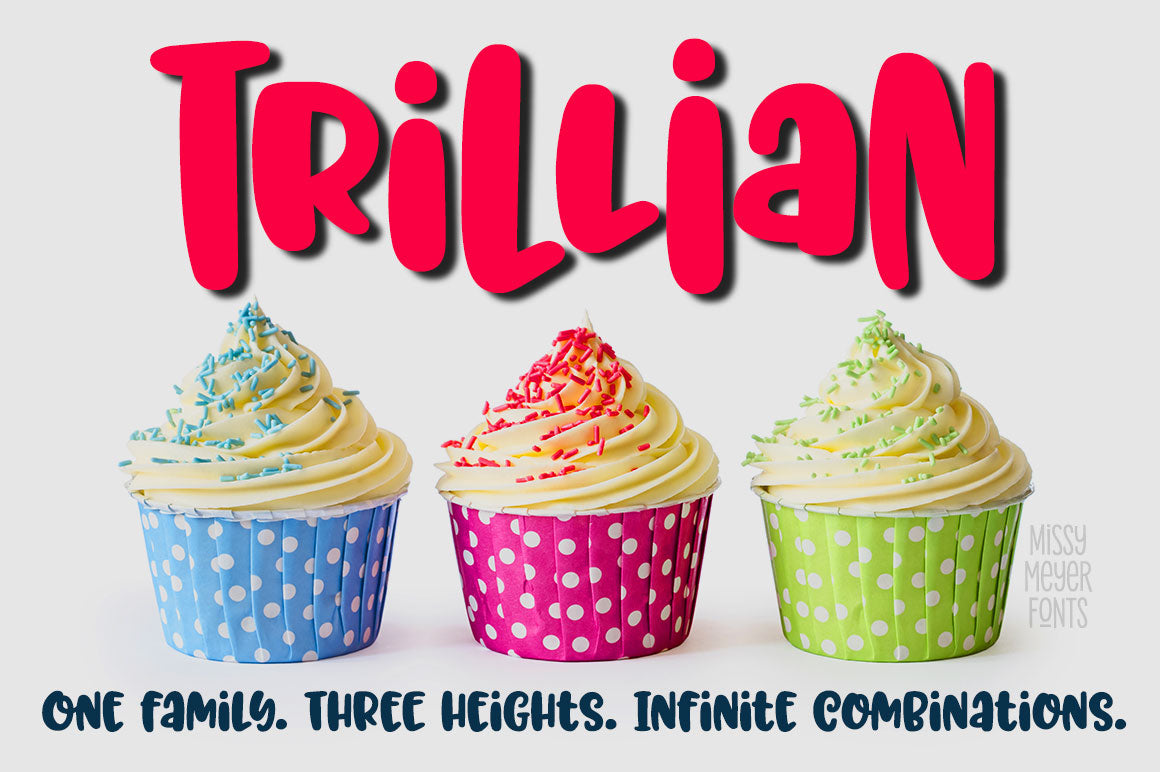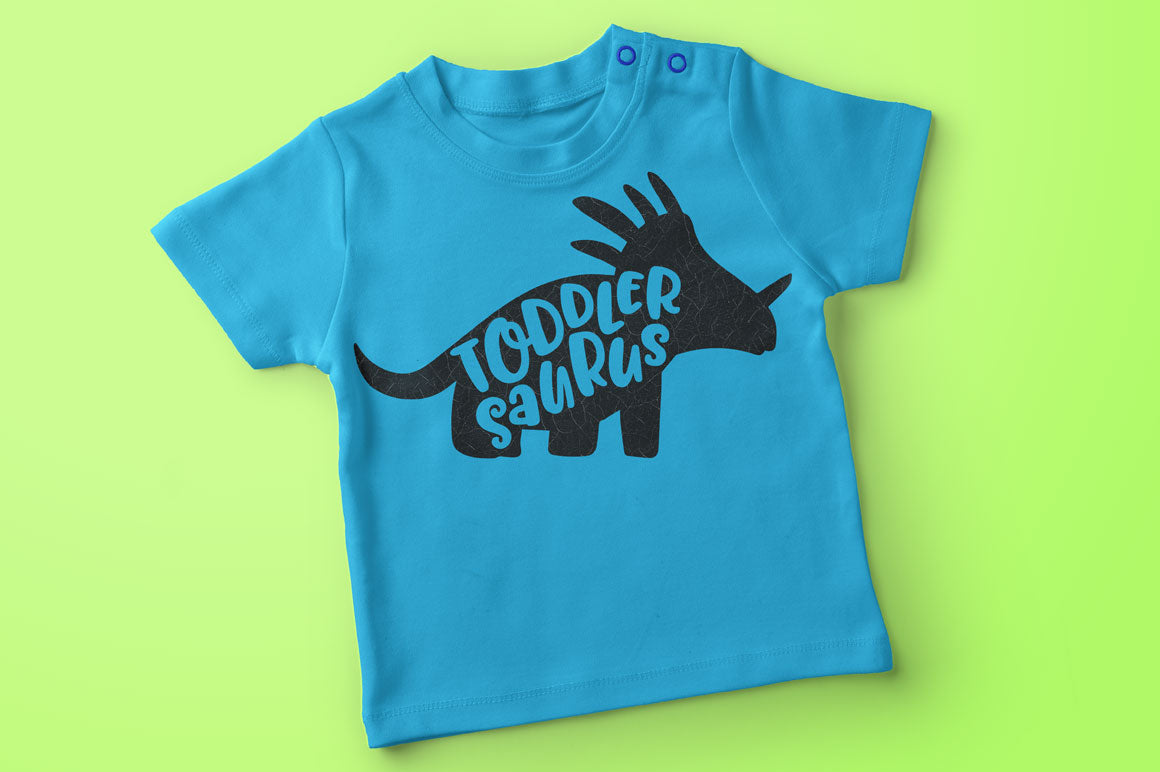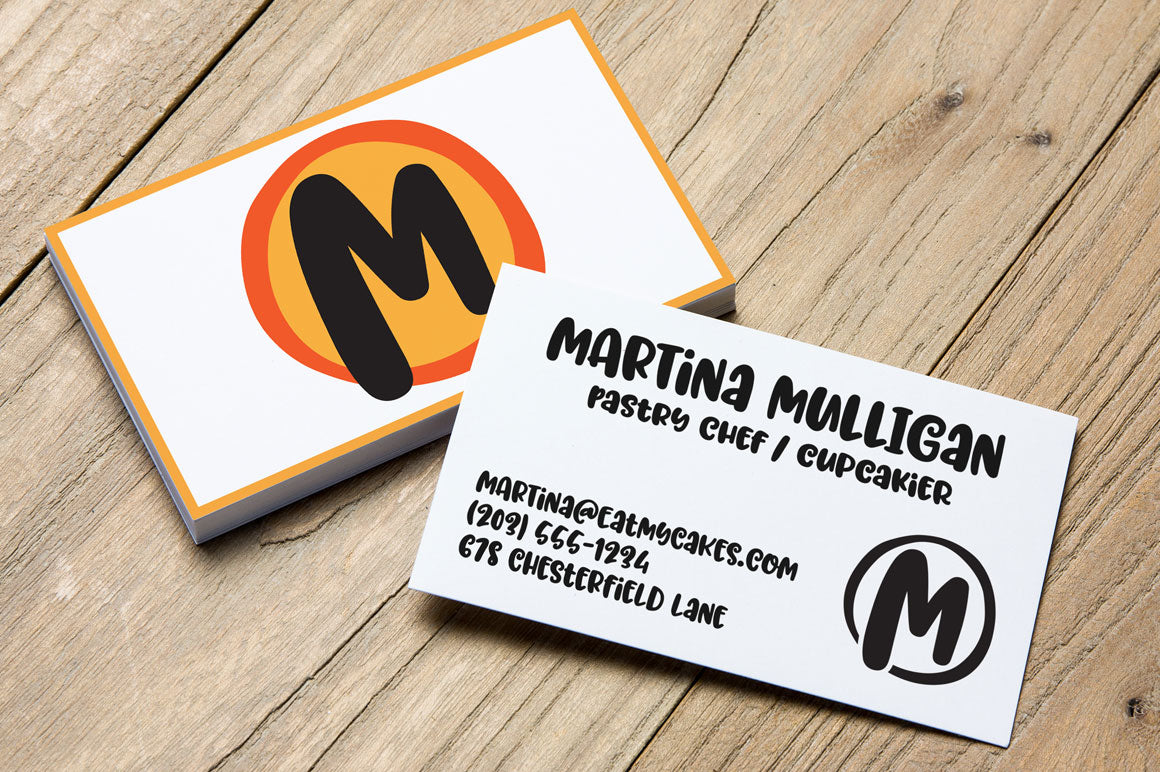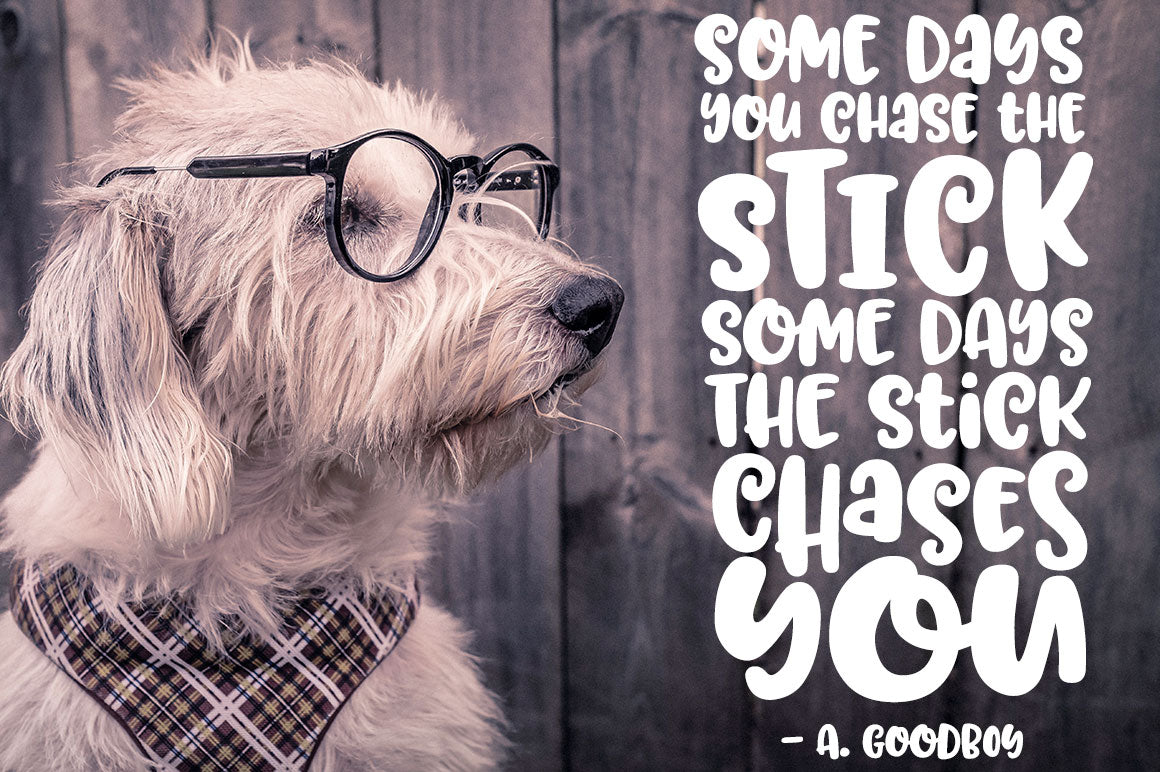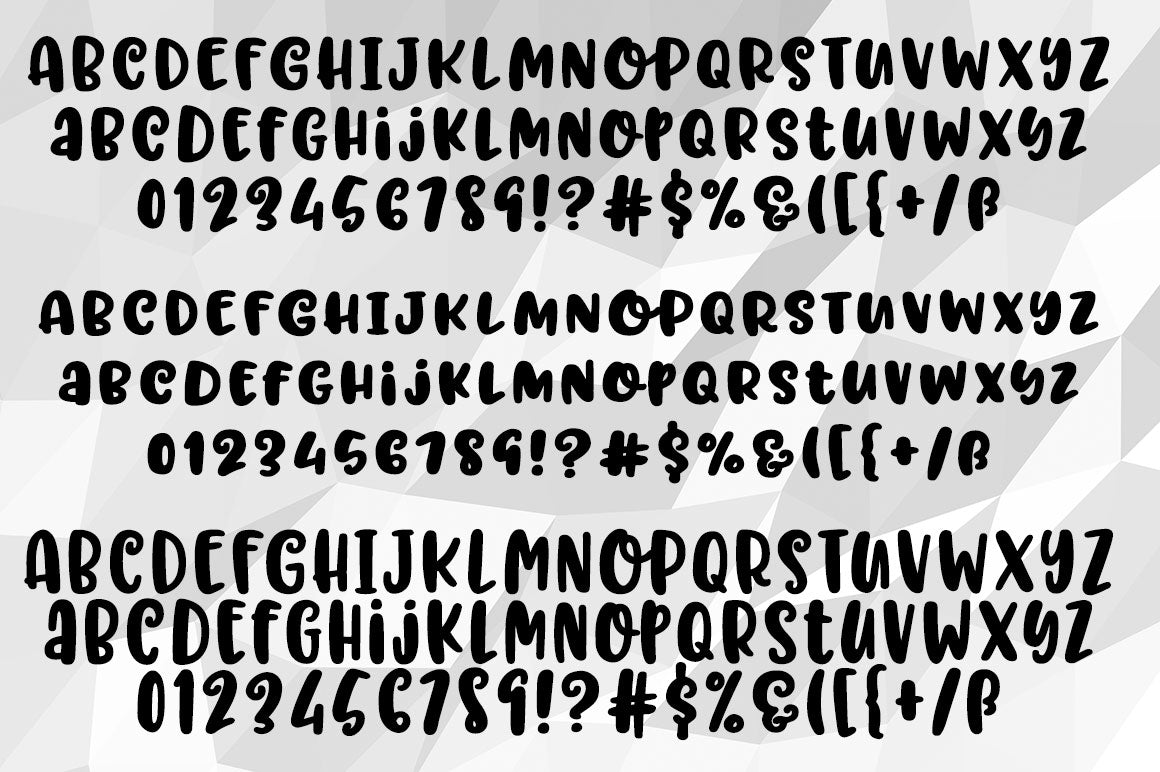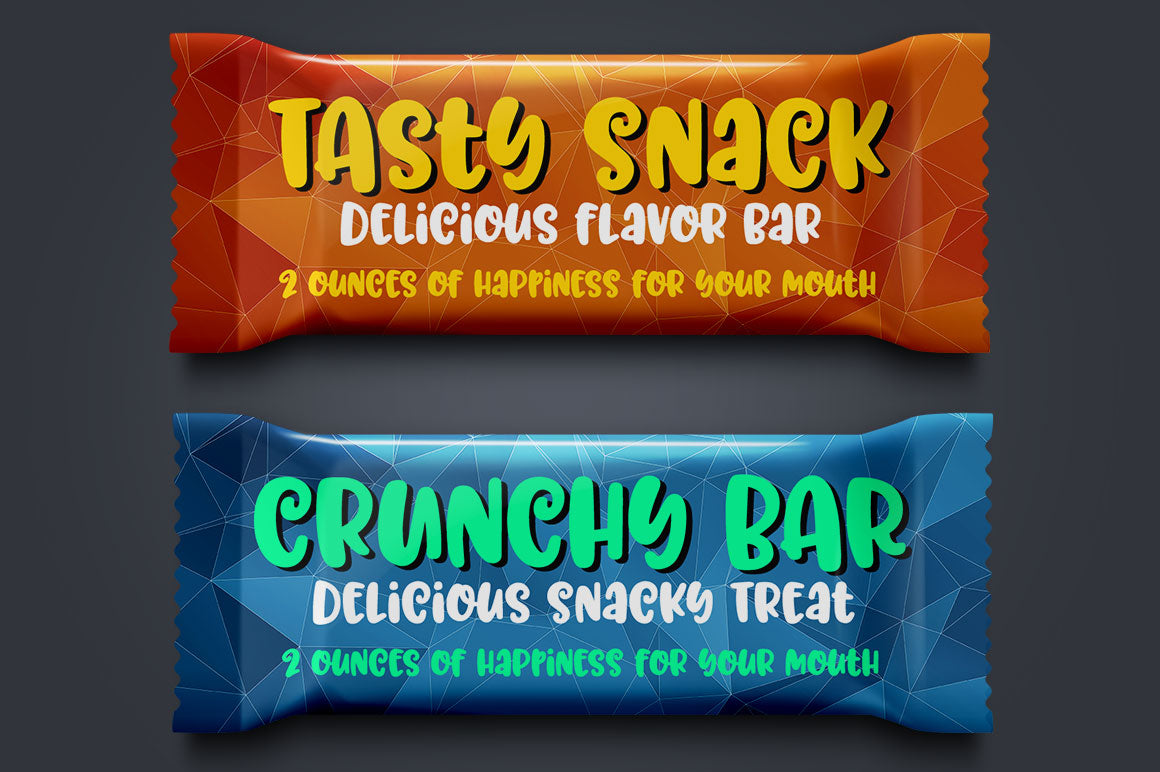
Trillian started out in just one size. Then I got into a discussion about how it makes font designers sad when people stretch their fonts taller, or squash their fonts shorter, because it makes the horizontal strokes off-balance. So I said to myself, "Self, why don't you make a couple of additional heights of Trillian? So if people want it a little taller or shorter, they have it already in hand?"
Then I said to myself, "Self, those good folks could also use all three alphabets together! They can mix and match for a fun varying-height design, and everything would go great together because all three sizes share the same line weights!"
Then I stopped talking to myself, because people were starting to stare.
And so, the three heights of Trillian were born! Regular, Taller, and Shorter. Each size is a complete font on its own, but they also work great when they're working together. Each file also includes a full set of over 300 extended Latin characters for language support.
(And yes, the name Trillian is an homage to the late, great Douglas Adams.)